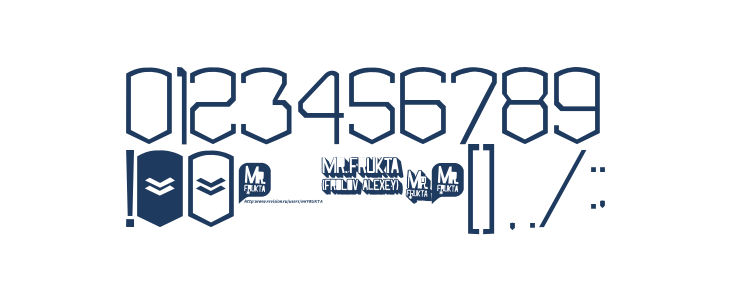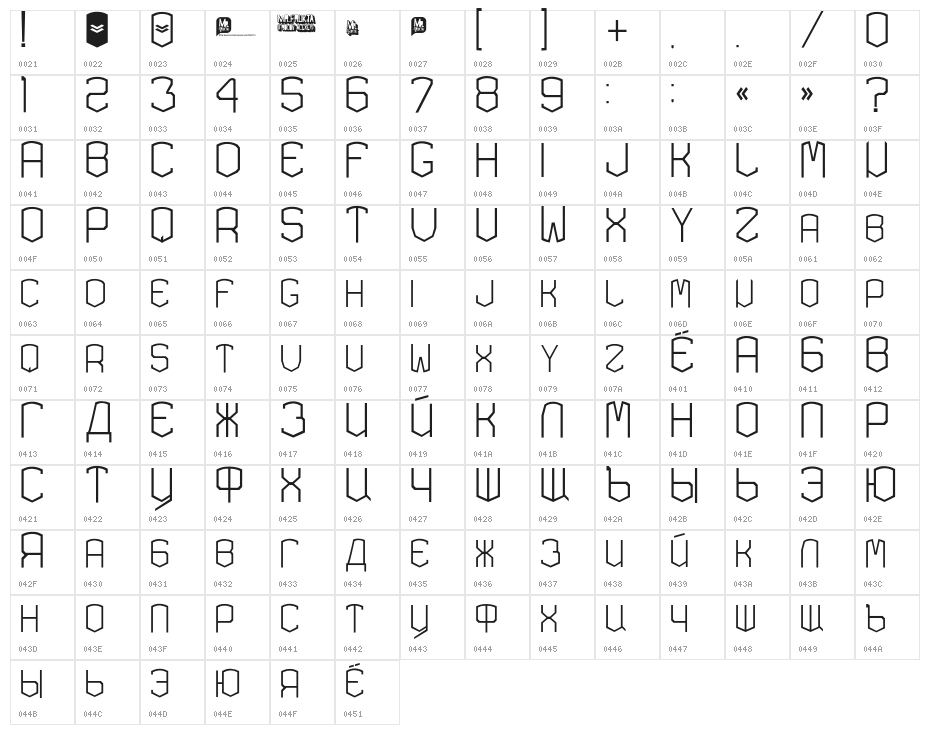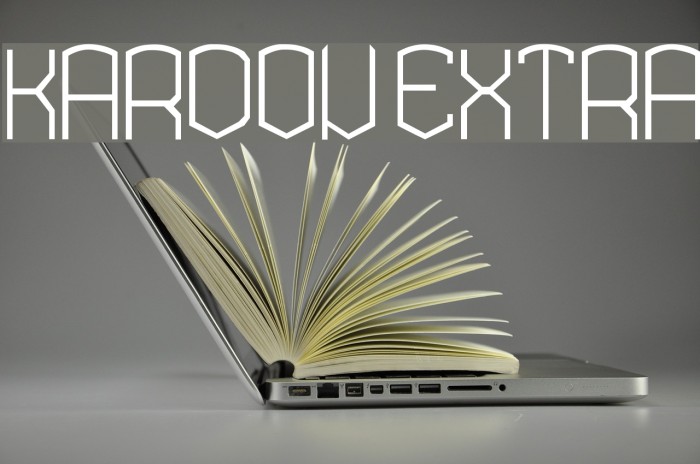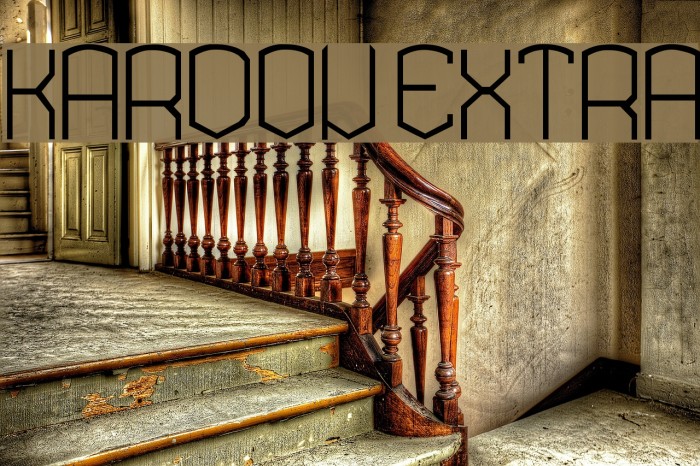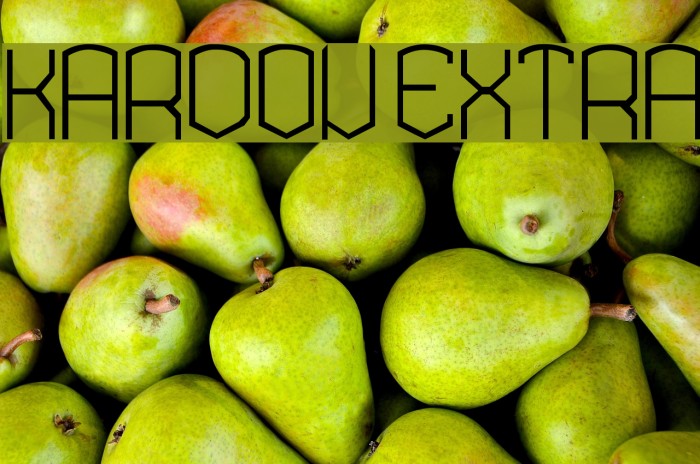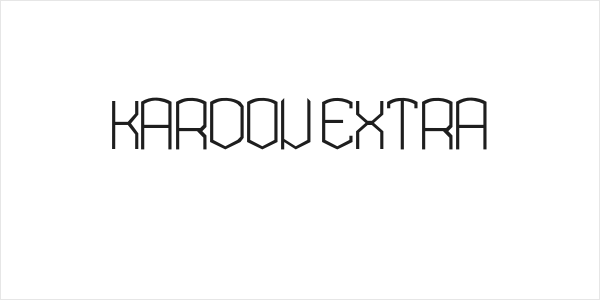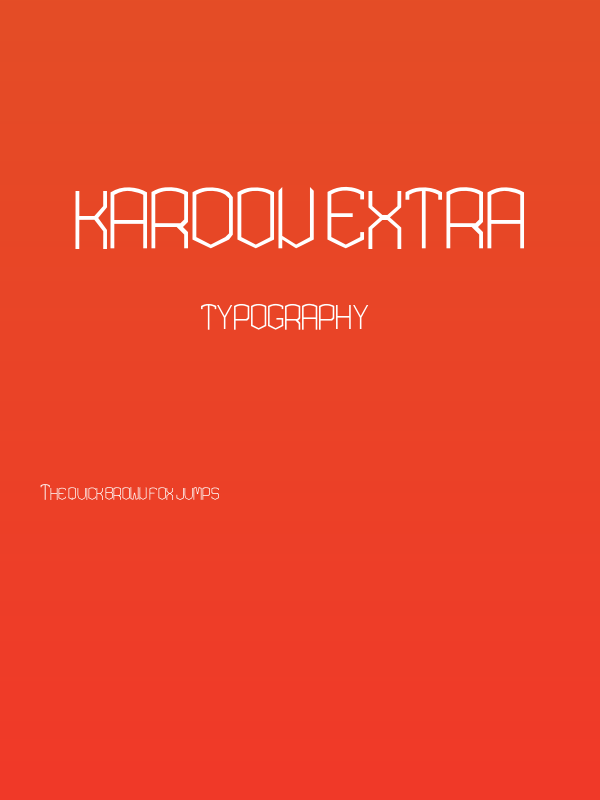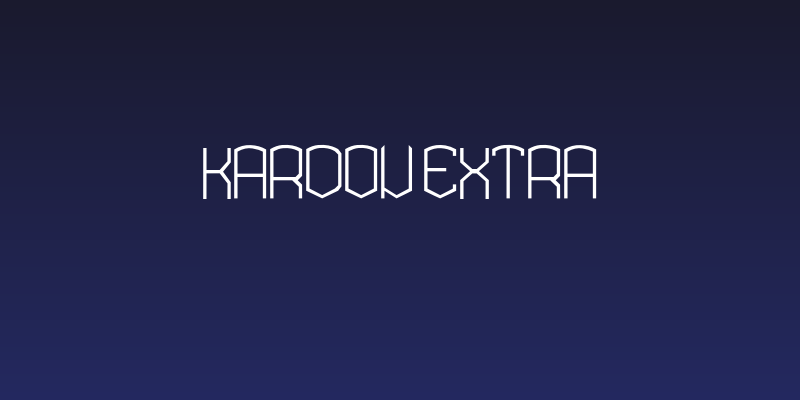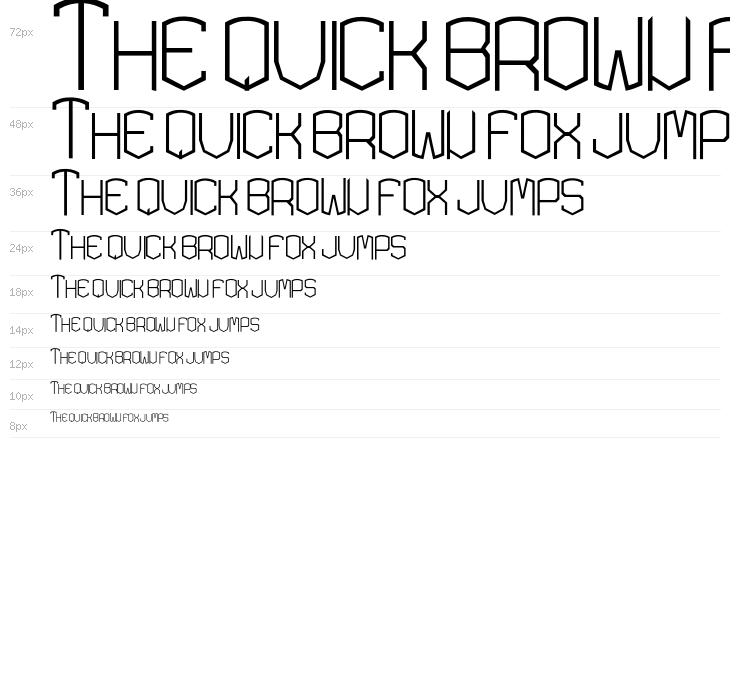
KARDON EXTRA Font
KARDON EXTRA Description
This font features a geometric and angular design, characterized by sharp edges and a futuristic aesthetic. The uppercase letters are bold and structured, with consistent line thickness that gives a uniform appearance. The numbers follow the same angular style, making them easily distinguishable. Special characters are creatively integrated, maintaining the overall geometric theme. This font exudes a modern and edgy vibe, suitable for projects that require a strong visual impact.
Proposed ProjectsIdeal for technology branding, sci-fi themed designs, video game titles, and modern posters.